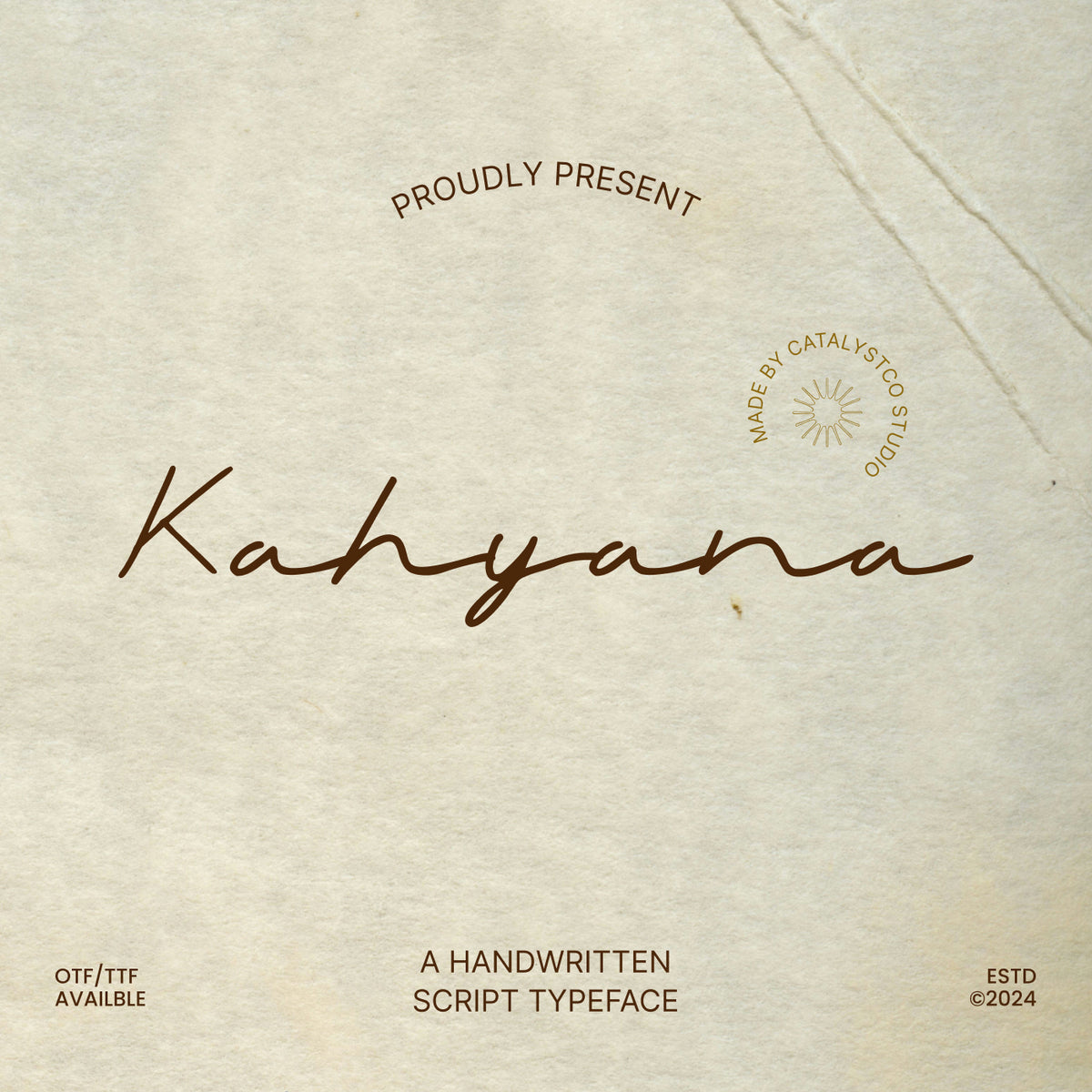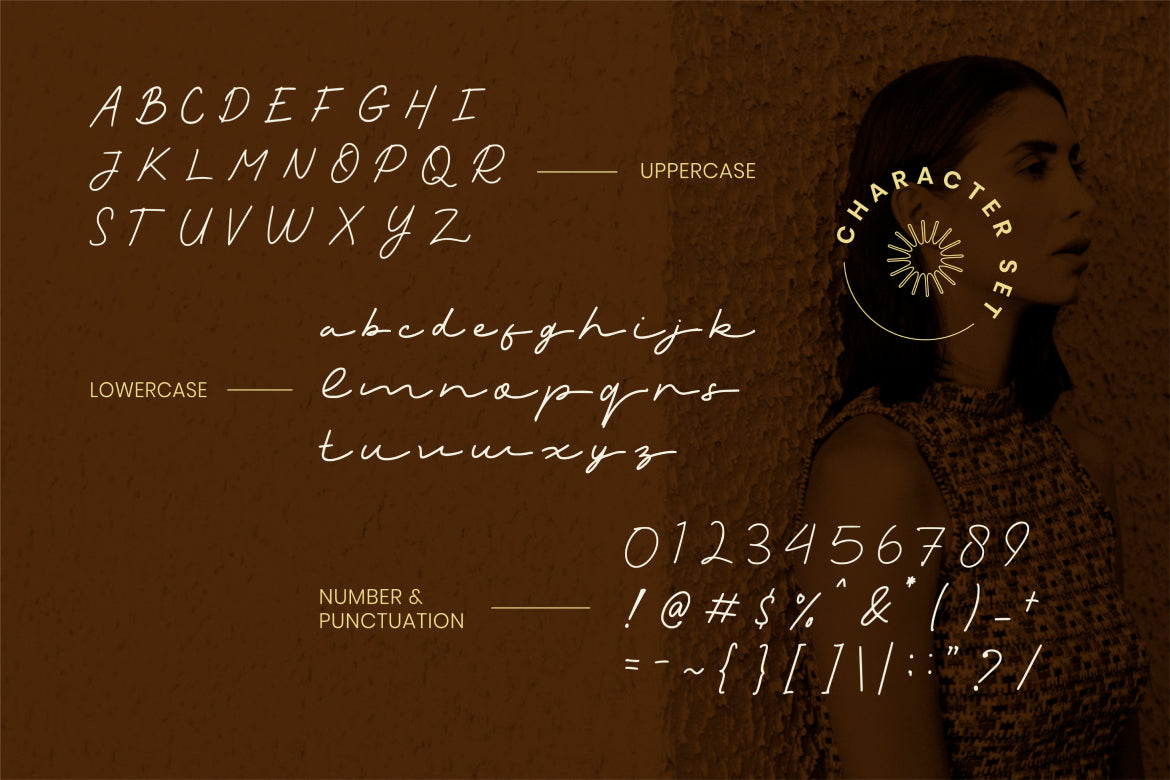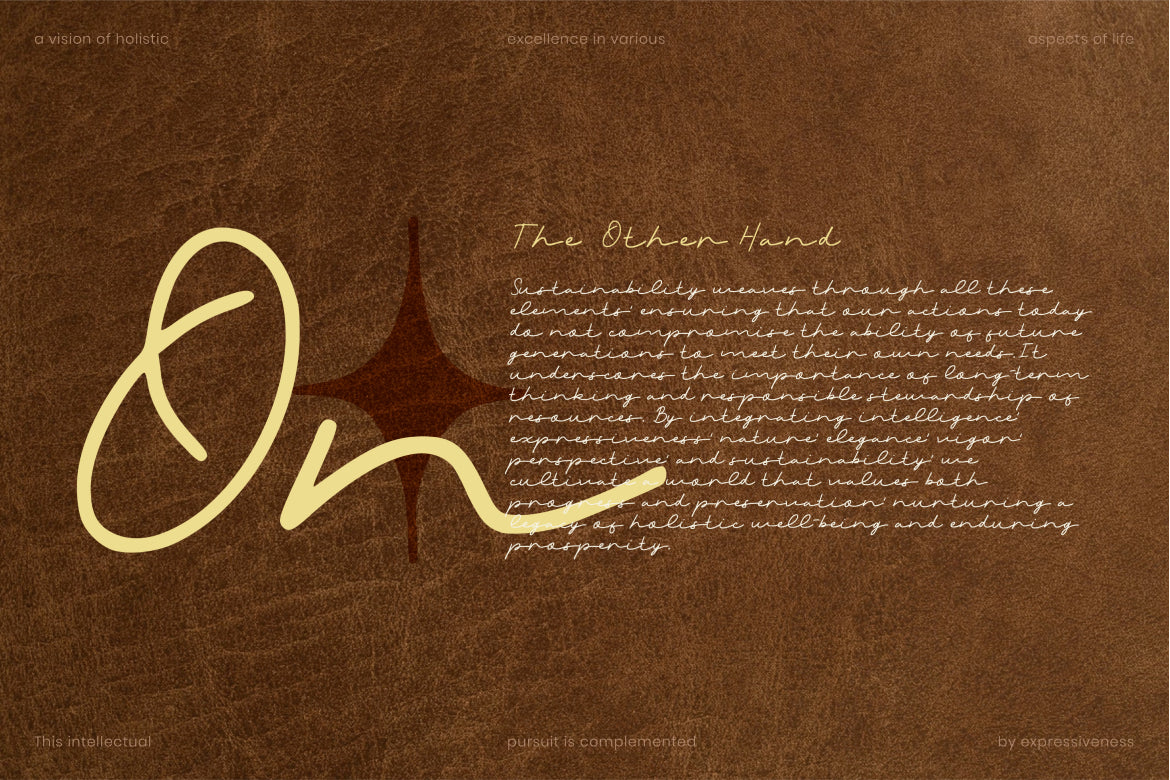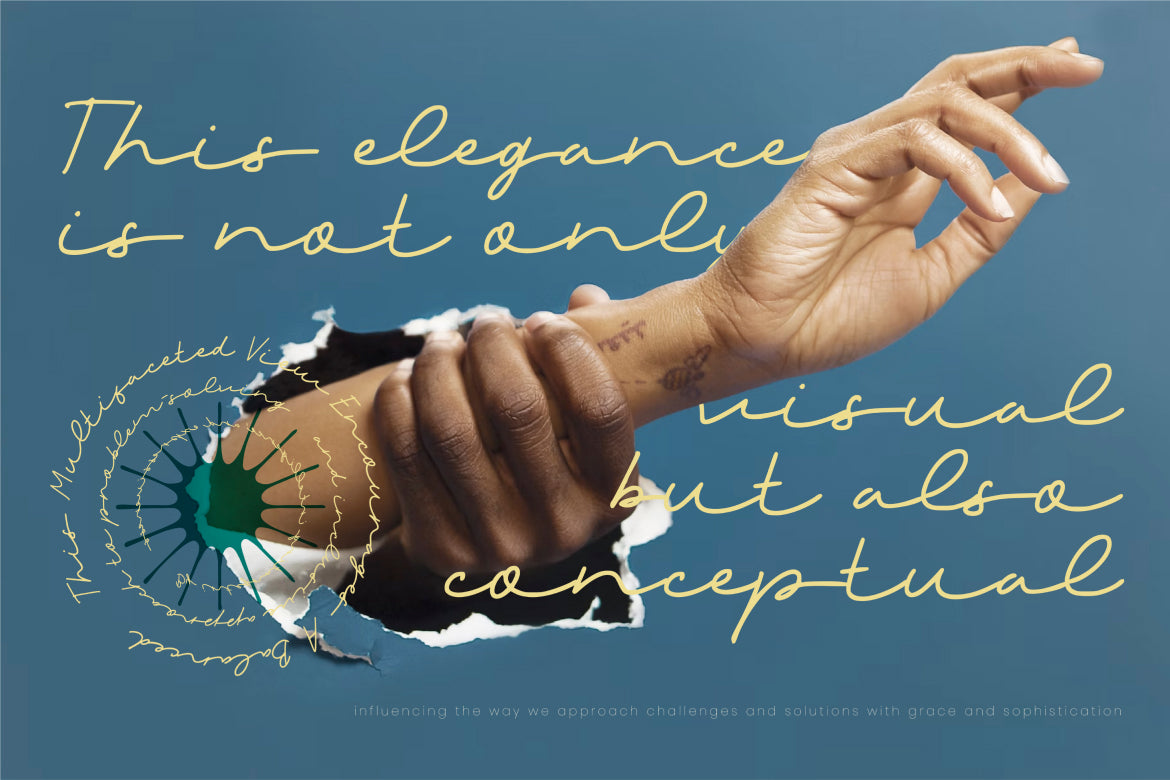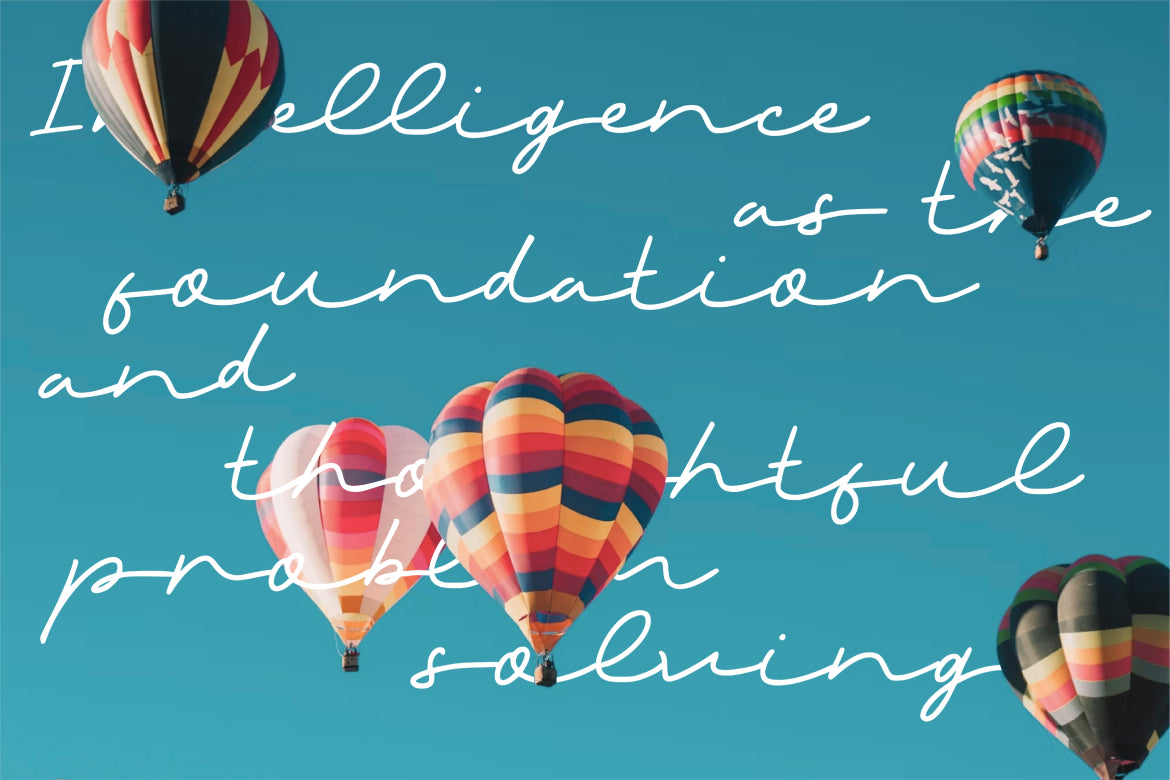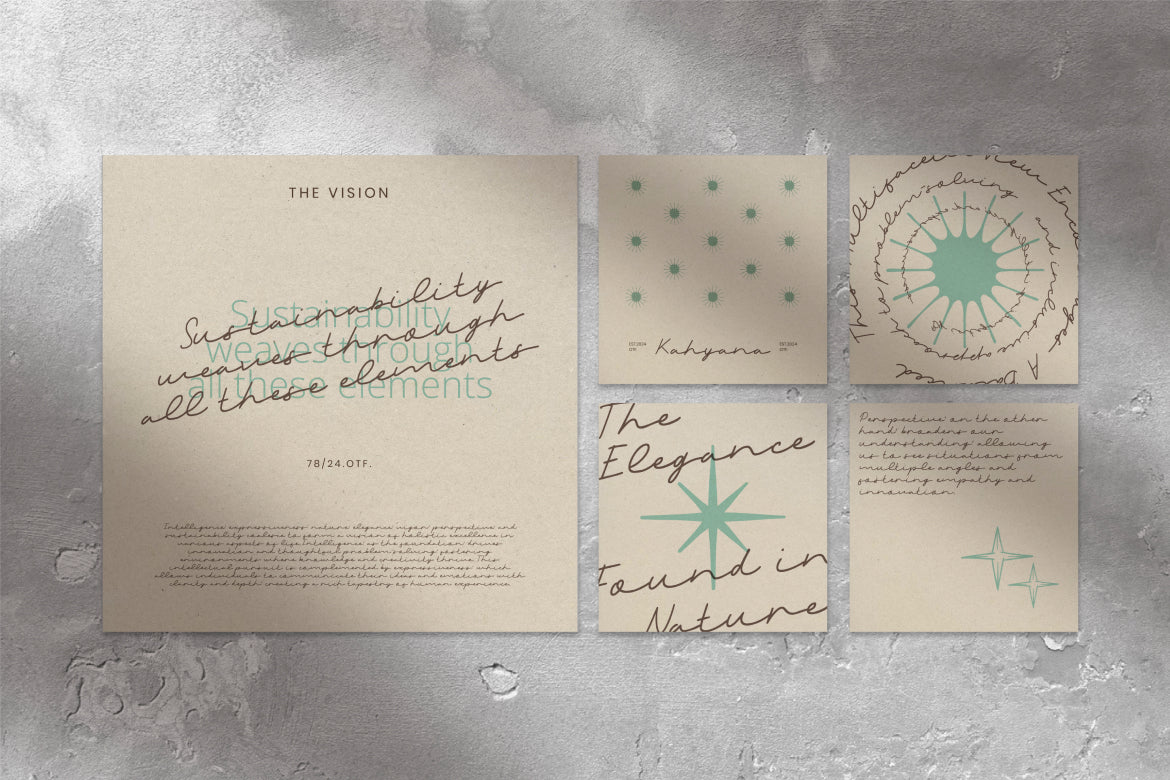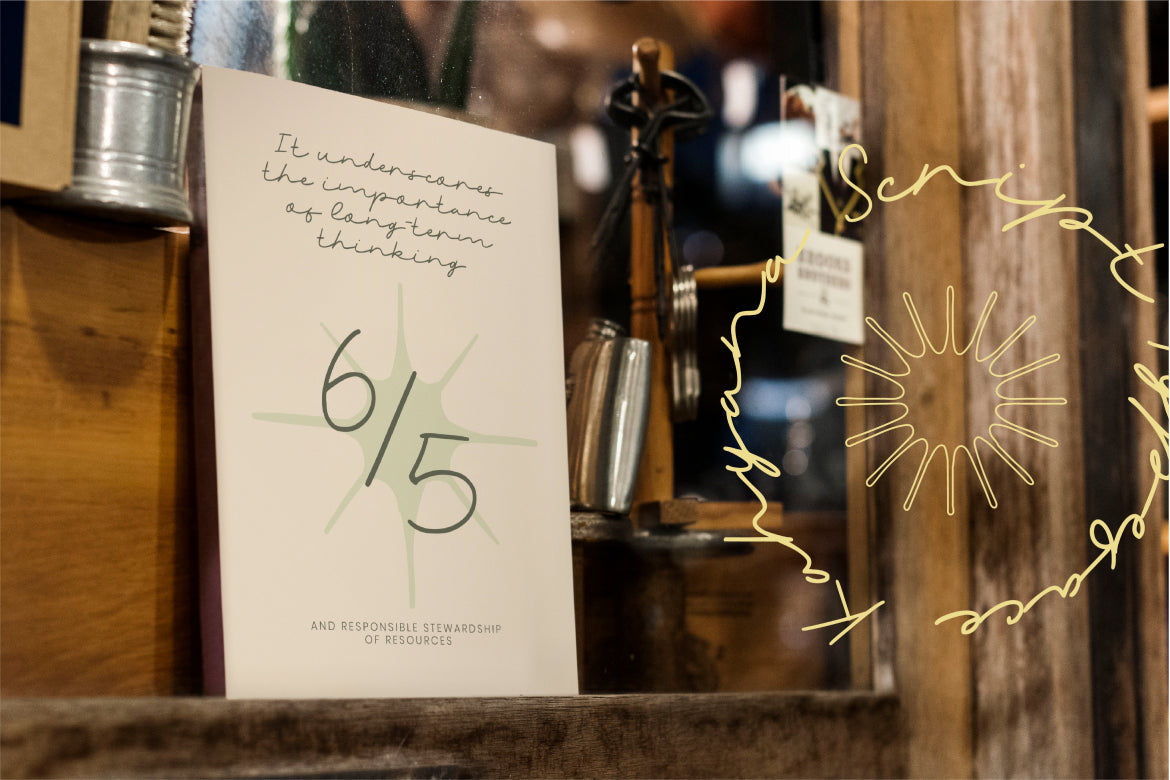
Kahyana Handwritten Script Typeface Font
Kahyana Handwritten Script Typeface Font with a natural, expressive rhythm. Its long, sweeping strokes, fluid connections, and delicate curves create a graceful appearance that feels personal and effortlessly stylish. The letterforms feature an organic handwritten quality, with subtle variations in their shapes and extended entry and exit strokes that add movement to the composition. Its refined linework gives the font a sophisticated character, while the loose, connected construction preserves the warmth and individuality of handwritten lettering.
Relevance and Use Case is perfect for creative projects that require a personal, graceful, and expressive typographic style. Its flowing strokes and signature-inspired construction make it particularly useful for fashion and beauty branding, boutique identities, wedding stationery, personalized invitations, lifestyle products, and premium packaging. Designers can use it for signature logos, product names, editorial headlines, greeting cards, social media graphics, and promotional materials where handwritten lettering can establish a distinctive visual personality.
Kahyana is a handwritten script typeface featuring connected letterforms with extended entry and exit strokes, uppercase and lowercase characters, ligatures, alternates, numerals, and punctuation. It is available in TTF, OTF, and WOFF formats with multilingual support.